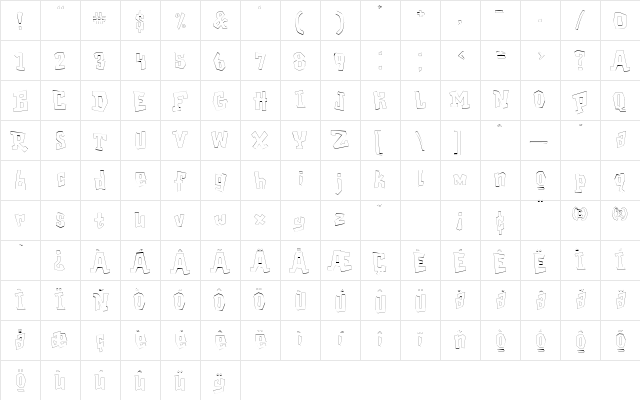
GarageShockOutline Regular
Design Context for GarageShockOutline Typeface
GarageShockOutline is built around its visual character rather than neutral utility — its distinctive forms are designed to make an impression at display sizes.
Font Pairing: Pair with a clean neutral sans-serif for body copy to let GarageShockOutline's character lead without overwhelming the composition.
Pro Tip: Treat GarageShockOutline as the centrepiece of your typographic hierarchy. One strong heading set in a decorative face can carry an entire layout.